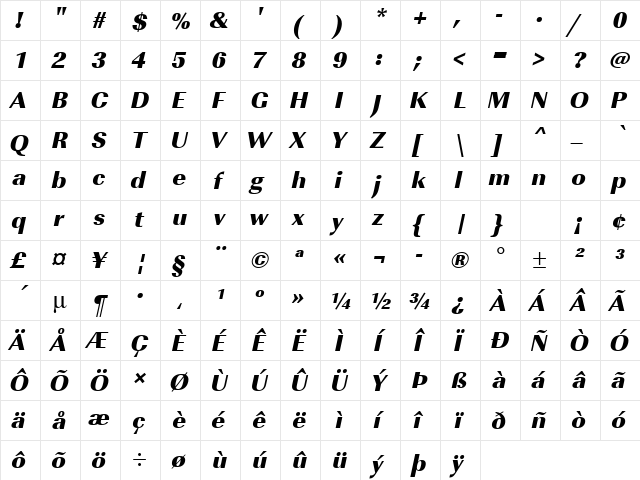
URWImperialTUltBol Oblique
Design Context for URWImperialTUltBol Typeface
URWImperialTUltBol offers clean, dependable letterforms without strong stylistic allegiance, making it a practical choice for designers who need flexibility. The slanted form adds forward momentum and visual energy.